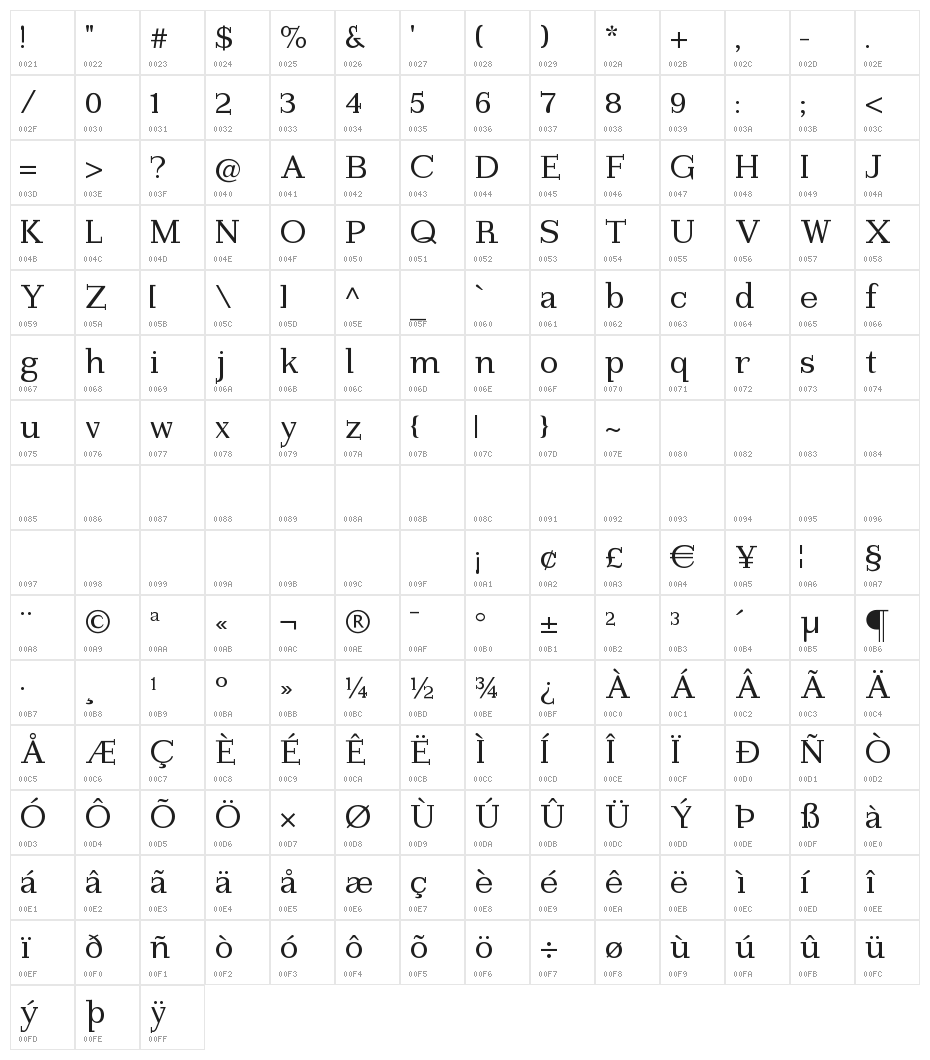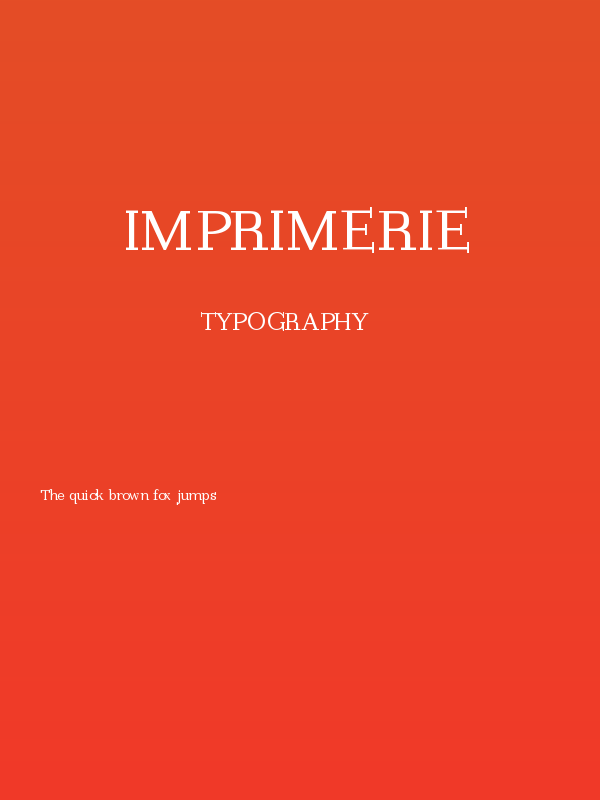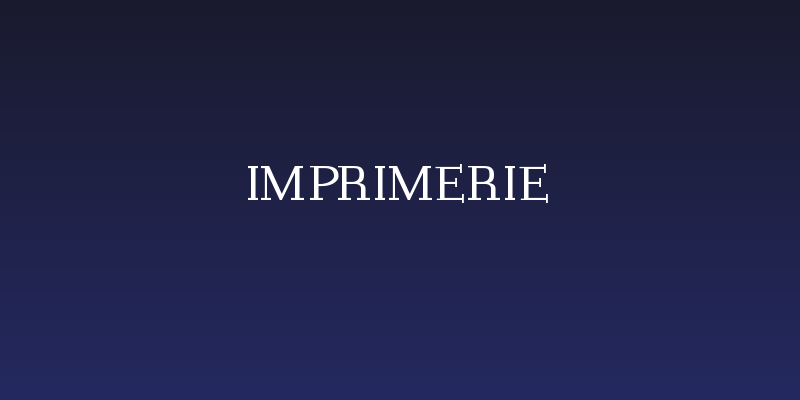
Imprimerie Font
Imprimerie Description
This font features a classic serif style with elegant and refined strokes. The uppercase letters are bold and commanding, while the lowercase letters maintain a balanced and harmonious appearance. The numerals are clear and distinct, making them easily readable. Special characters are well-integrated, maintaining the overall aesthetic of the font. The serifs are pronounced, adding a touch of sophistication and tradition. The font's design is versatile, suitable for both formal and creative applications.
| Proposed Projects | Ideal for book covers, editorial design, formal invitations, and branding projects that require a touch of elegance. |